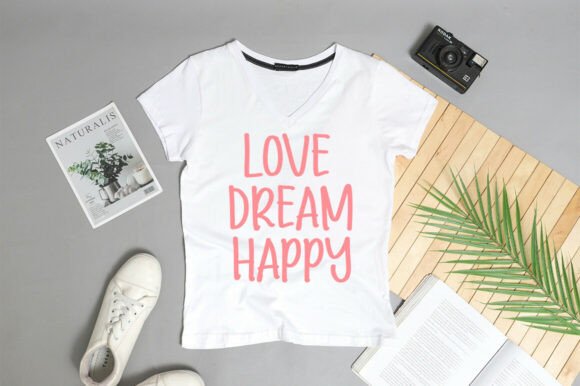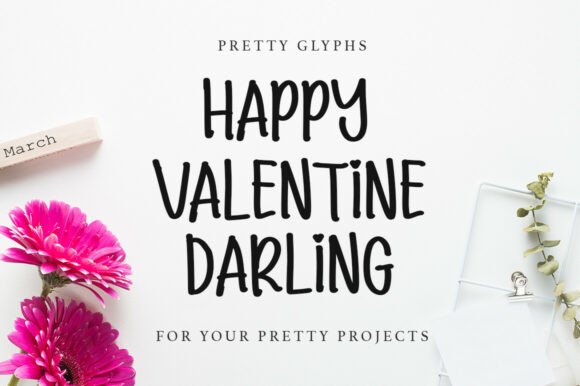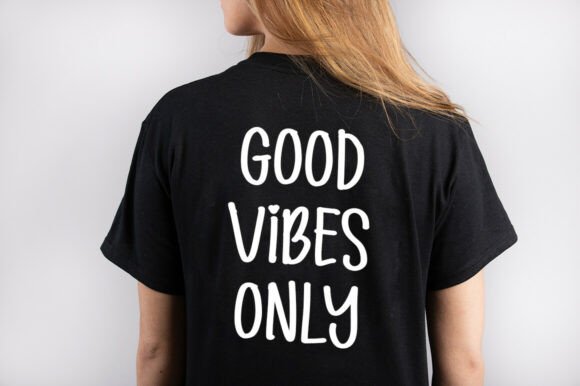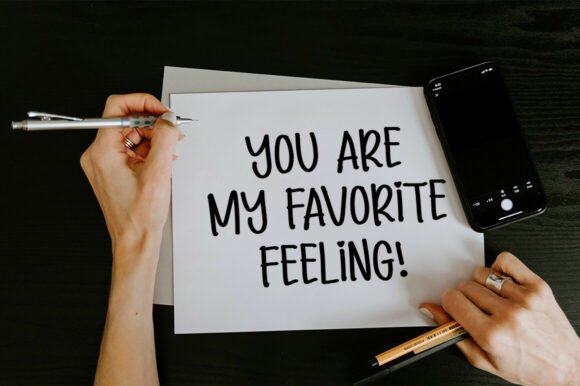
Introduction to Opalink Font
There’s something magical about witnessing a creative idea come to life, isn’t there? The spark of inspiration that sets your imagination ablaze, the hours spent perfecting every detail, and the satisfaction of seeing your vision take shape. For designers, this moment is what drives us to push the boundaries of innovation and excellence.
Enter the Opalink Font, a game-changing addition to any designer’s toolkit. This artisanal handwritten brush font is the perfect blend of raw emotion and sophisticated style, making it the ideal choice for creatives seeking to infuse their work with high-quality, distinctive flair.
Key Features of Opalink Font
- High-quality design resource with a modern and elegant feel, suitable for creative projects.
- Includes a range of weights and styles, from light to bold, to cater to diverse design needs and preferences.
Honest Review: Opalink Font
I recently came across the Opalink Font, and I must say it’s a high quality design resource that caught my attention. The font has a unique aesthetic that would be perfect for a creative project requiring a modern touch.
One of the standout features of the Opalink Font is its transparent background, which makes it easy to use in various design contexts. I was able to integrate it seamlessly into my design work without any issues.
Here are some of the things that work well with the Opalink Font:
- Unique and modern aesthetic
- High quality design
- Easy to use transparent background
However, I did encounter some limitations while using the Opalink Font:
- May not be suitable for projects requiring a traditional or classic look
- Some characters may not be as detailed as others
Overall, I’m impressed with the Opalink Font, and I think it’s a great addition to any designer’s toolkit. While it may have some limitations, its unique aesthetic and high quality design make it a valuable resource for any creative project.
Tips for Getting the Most Out of Opalink Font
For optimal results, pair the Opalink Font with a high-quality image or design element. Experiment with different font sizes and styles to create a visually appealing design. You can also use the Opalink Font as a starting point and customize it to fit your specific design needs.
Common Use Cases for Opalink Font
The Opalink Font is ideal for a variety of creative projects, including business cards, flyers, brochures, and presentations. Its transparent background and high-quality design make it perfect for adding a touch of elegance to any design.
Yes, the Opalink Font is designed to be used with a transparent background, making it perfect for creative projects that require a subtle, non-distracting font. This feature allows you to easily overlay the font on top of images or other design elements.
Q: What is the recommended size range for using the Opalink Font?
The Opalink Font is designed to be highly legible at various font sizes. We recommend using it between 12pt and 48pt for optimal readability. However, feel free to experiment with different font sizes to achieve the desired look for your creative project.